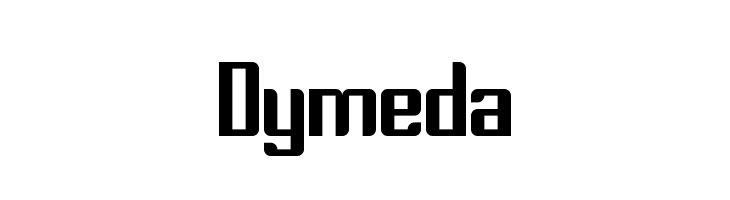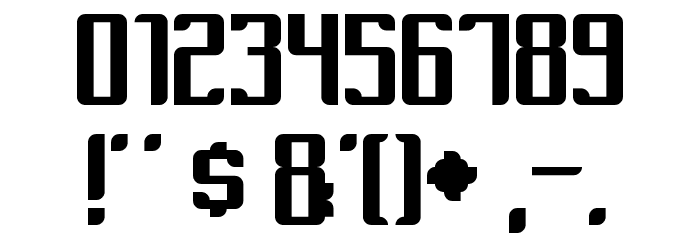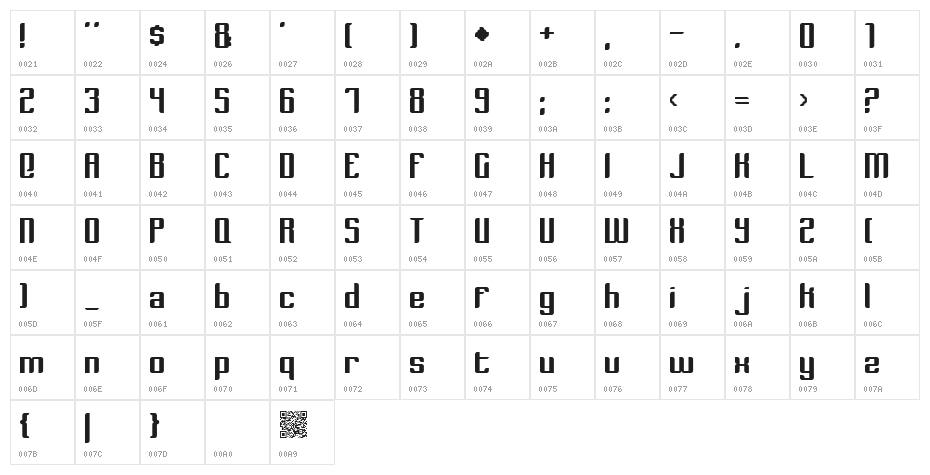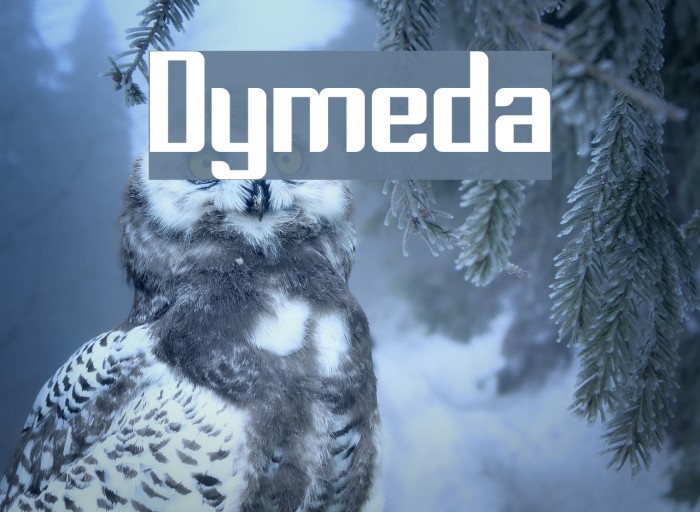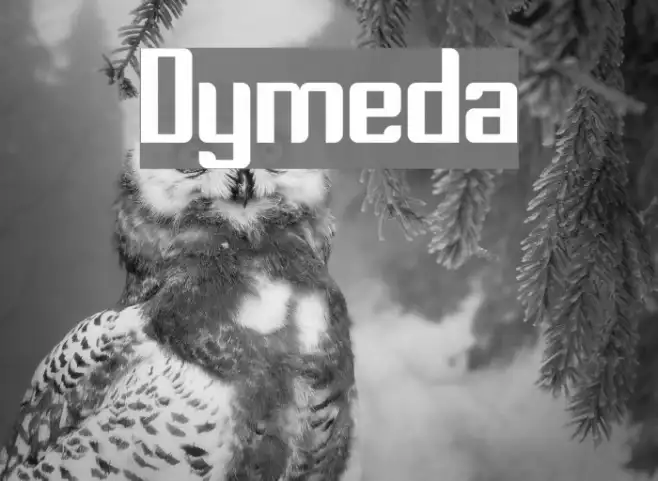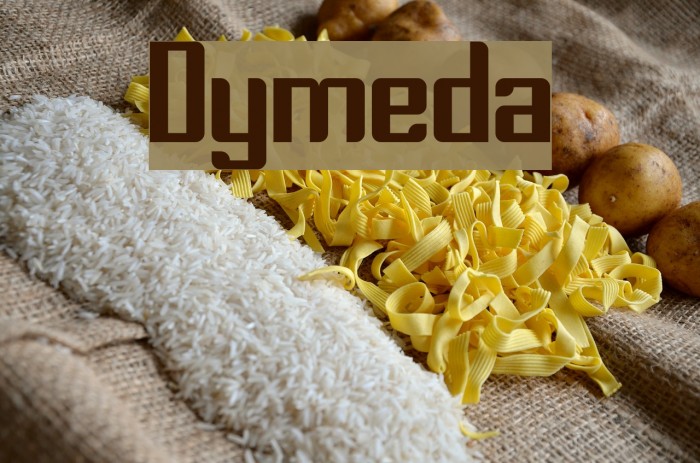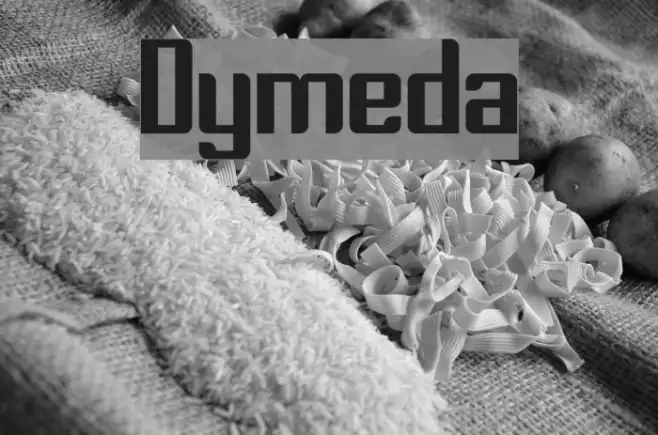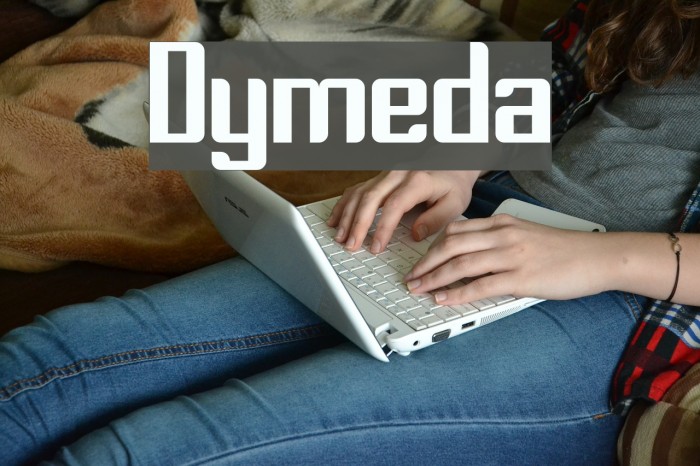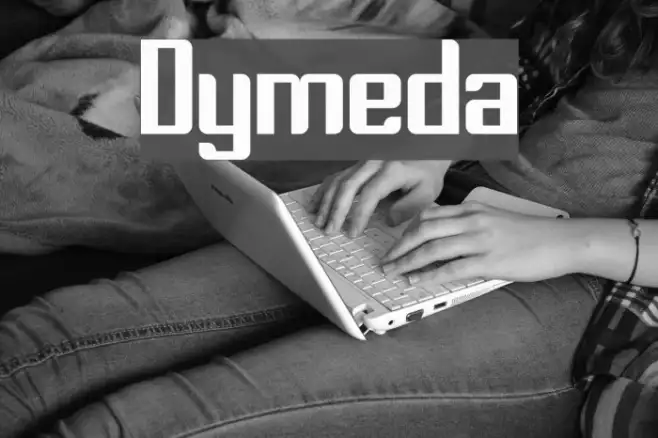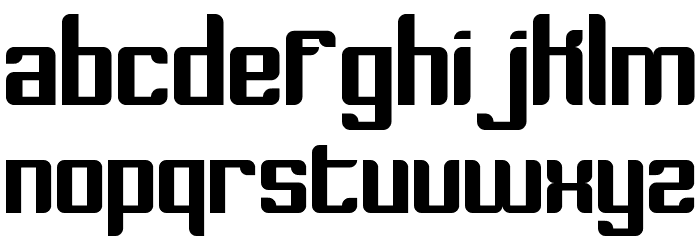
Dymeda Font
Dymeda Description
This font features a bold, geometric design with a modern and futuristic aesthetic. The characters are constructed with uniform stroke widths, giving them a monospaced appearance. The uppercase letters are tall and narrow, while the lowercase letters maintain a consistent height, creating a cohesive look. The numerals are distinct and easy to read, with a similar geometric style. Special characters are included, adding versatility to the font. The overall design is clean and minimalistic, making it suitable for a variety of digital and print applications.
| Proposed Projects | Ideal for technology branding, digital interfaces, posters, and modern editorial design. |